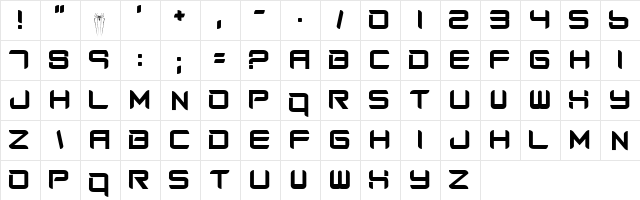
Amazing Spider Man Regular
| Foundry | P. A. Vannucci |
| Designer | P. A. Vannucci |
Design Context for Amazing Spider Man Typeface
Amazing Spider Man offers clean, dependable letterforms without strong stylistic allegiance, making it a practical choice for designers who need flexibility.